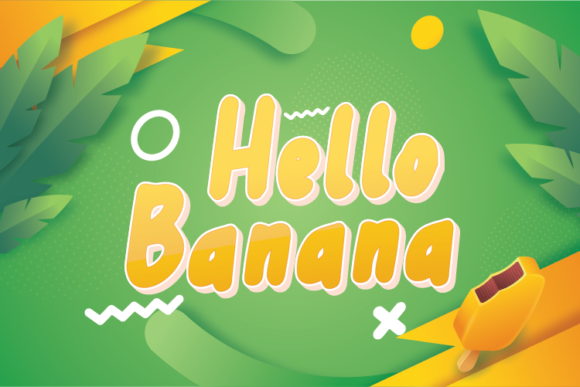
Welcome to the captivating world of Hello Banana Font, a cheerful and playful display font that will add a dash of whimsy to your creations! This delightful typeface, crafted by the talented Hanna Bie, exudes charm and warmth, making it the perfect choice for a wide range of projects aimed at captivating your audience.
Immerse yourself in the enchanting realm of Hello Banana Font and let its joyous spirit uplift your designs. Its chunky and playful appearance radiates an amiable and inviting aura, promising to capture the hearts of all who encounter it. Step into a world of endless possibilities, where Hello Banana Font dances across your projects, adding a touch of whimsy and cheer to every element.
Picture books come alive with newfound wonder as Hello Banana Font weaves its magic through each page, enchanting young readers with its playful embrace. Clothing takes on a vibrant personality as Hello Banana Font playfully adorns t-shirts, hats, and accessories, inviting customers to embrace their playful side. Games and toys become even more engaging as Hello Banana Font leaps off the screen, captivating players with its whimsical charm.
With Hello Banana Font, the possibilities are as limitless as your imagination. Embark on a creative adventure, where joy and laughter dance hand in hand, creating unforgettable experiences for your audience. Unleash the power of Hello Banana Font and watch as your projects blossom into cheerful masterpieces that radiate positivity and cheer.